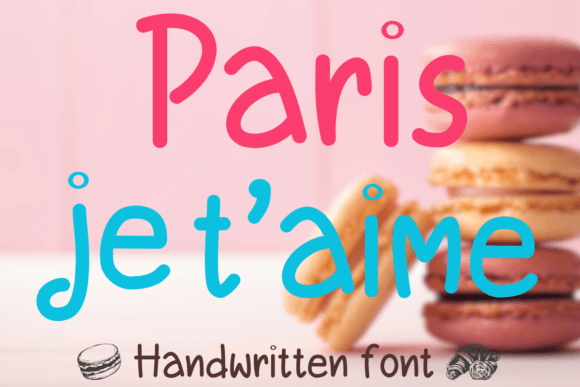
Introducing Paris Je T'aime Font - A Whimsical Handwritten Charm for Your Creative Endeavors!
Step into a world of enchanting typography with Paris Je T'aime Font, a captivating script font that exudes warmth and personality. Inspired by the romantic allure of Paris, this font transports you to the heart of creativity, where every letter is a stroke of heartfelt expression.
With its playful curves and charming imperfections, Paris Je T'aime captures the essence of handwritten scripts, adding a touch of authenticity and intimacy to your designs. Whether you're crafting heartfelt messages for social media, designing whimsical invitations, or creating unique DIY projects, this font is your perfect companion.
Let your words dance across the page with the grace of Paris Je T'aime, a font that's as versatile as it is captivating. Its friendly demeanor lends itself effortlessly to a myriad of creative projects, from heartfelt love letters to playful social media posts. Unleash your imagination and watch as your words transform into captivating works of art.
Escape the mundane and embrace the extraordinary with Paris Je T'aime Font. Its intricate details and enchanting flow will add a touch of magic to your creative endeavors, leaving a lasting impression on all who behold it. Don't just settle for ordinary fonts; let Paris Je T'aime ignite the passion in your designs and elevate your creations to new heights of artistry.